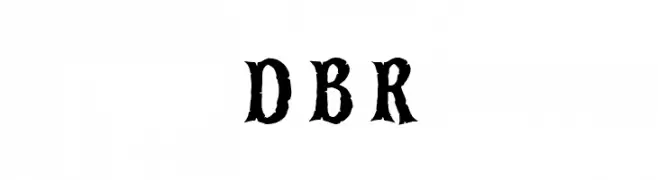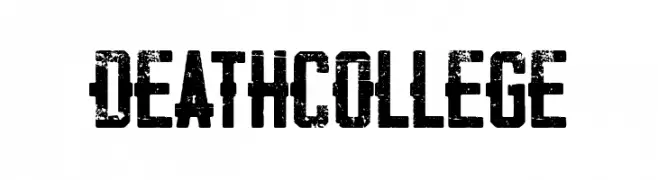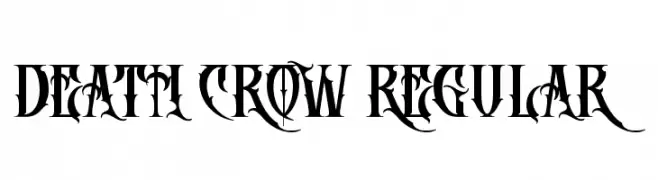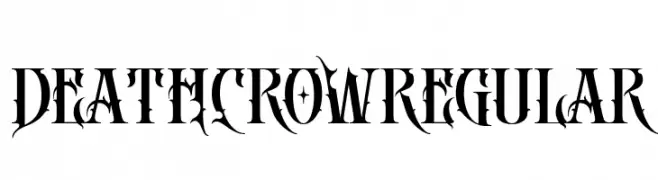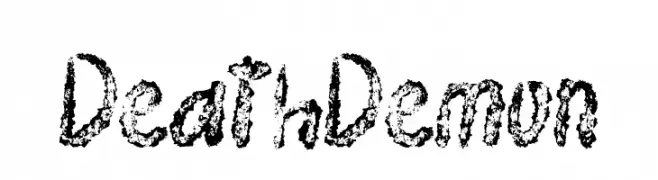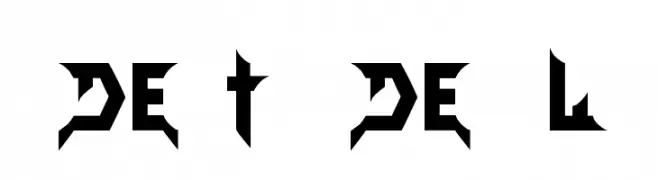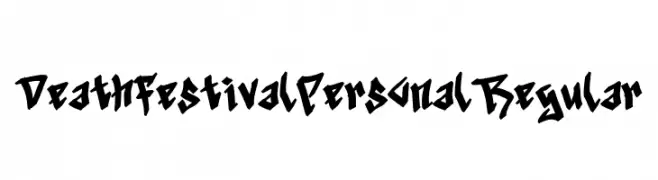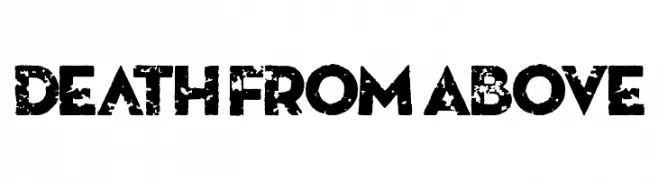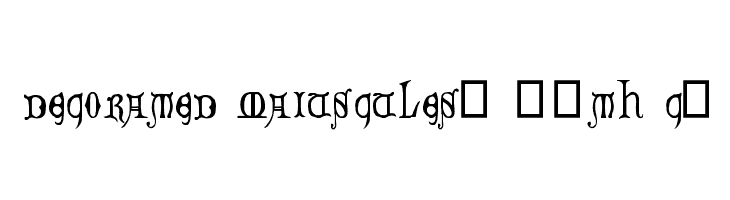
Distressed, bold display font with jagged, horror-inspired forms.
An edgy, branch-like decorative font with a gothic flair.
A bold, distressed font with a gritty, rugged texture.
A bold, gothic-inspired font with sharp serifs and intricate detailing.
A bold, gothic-style font with sharp serifs and high contrast strokes.
A distressed, textured font with a gritty, raw aesthetic.
A bold, angular font with a futuristic and energetic design.
A bold, angular font with a gothic influence and dramatic flair.
A bold, distressed font with a rugged, textured appearance.
A bold, angular font with a futuristic and aggressive style.